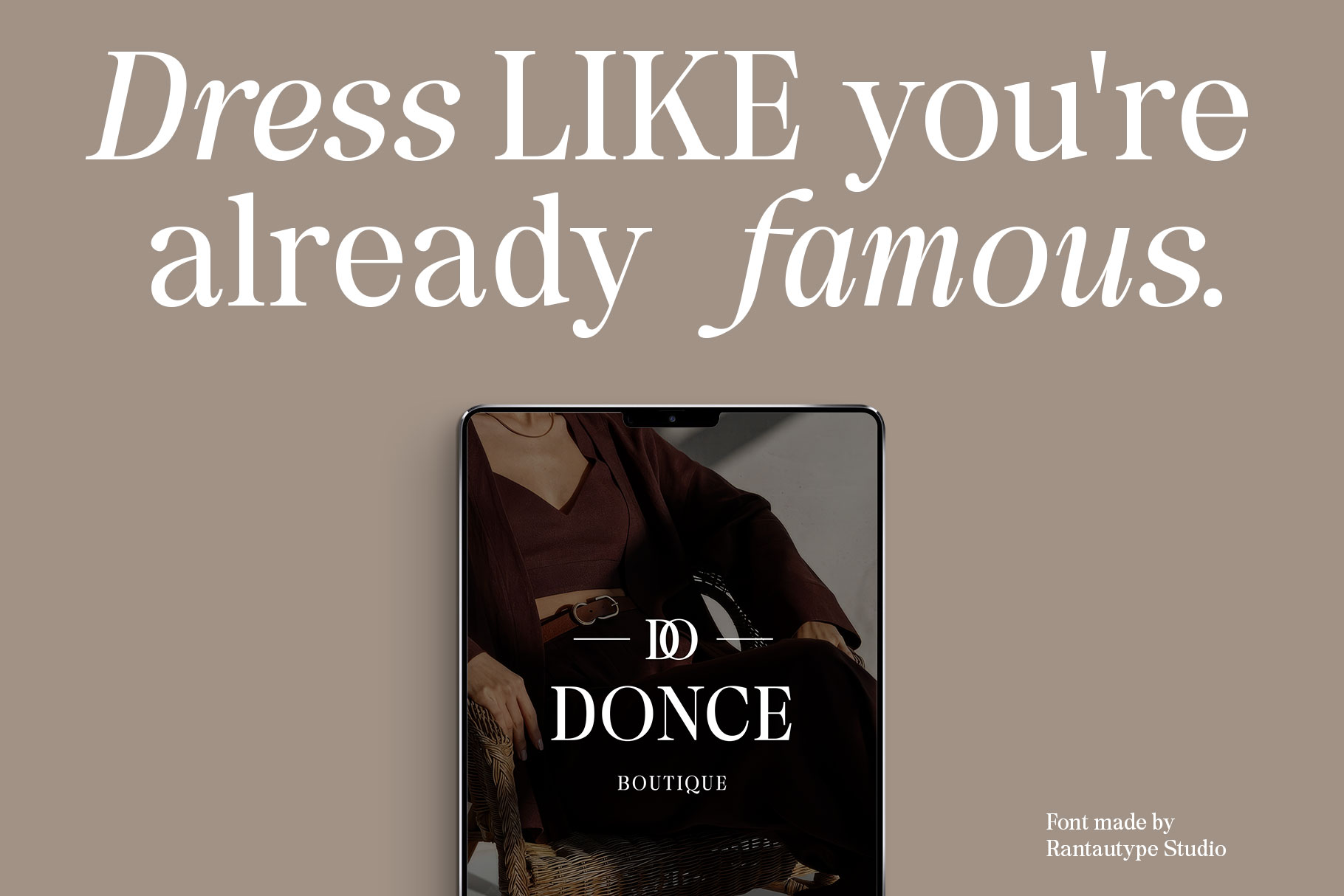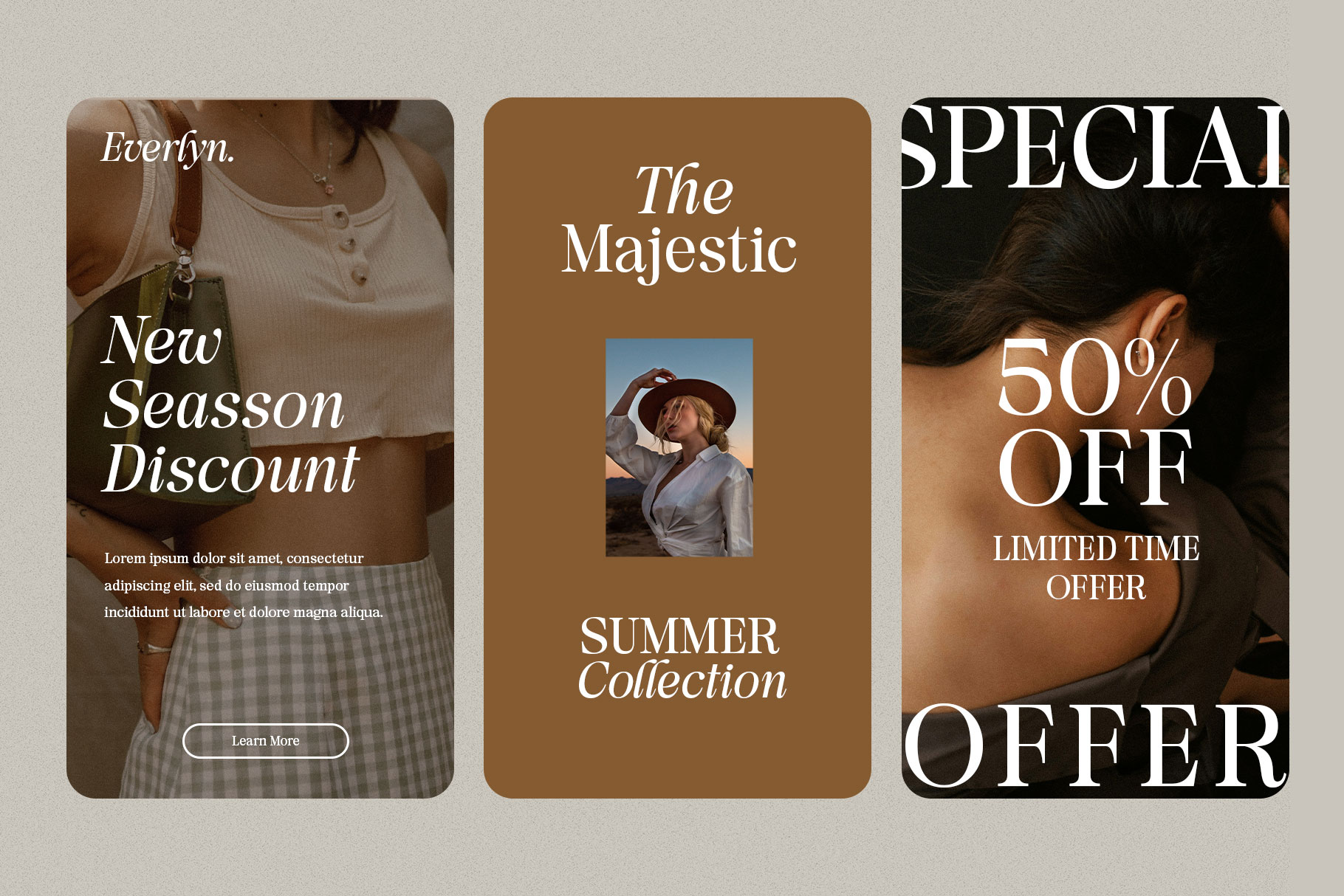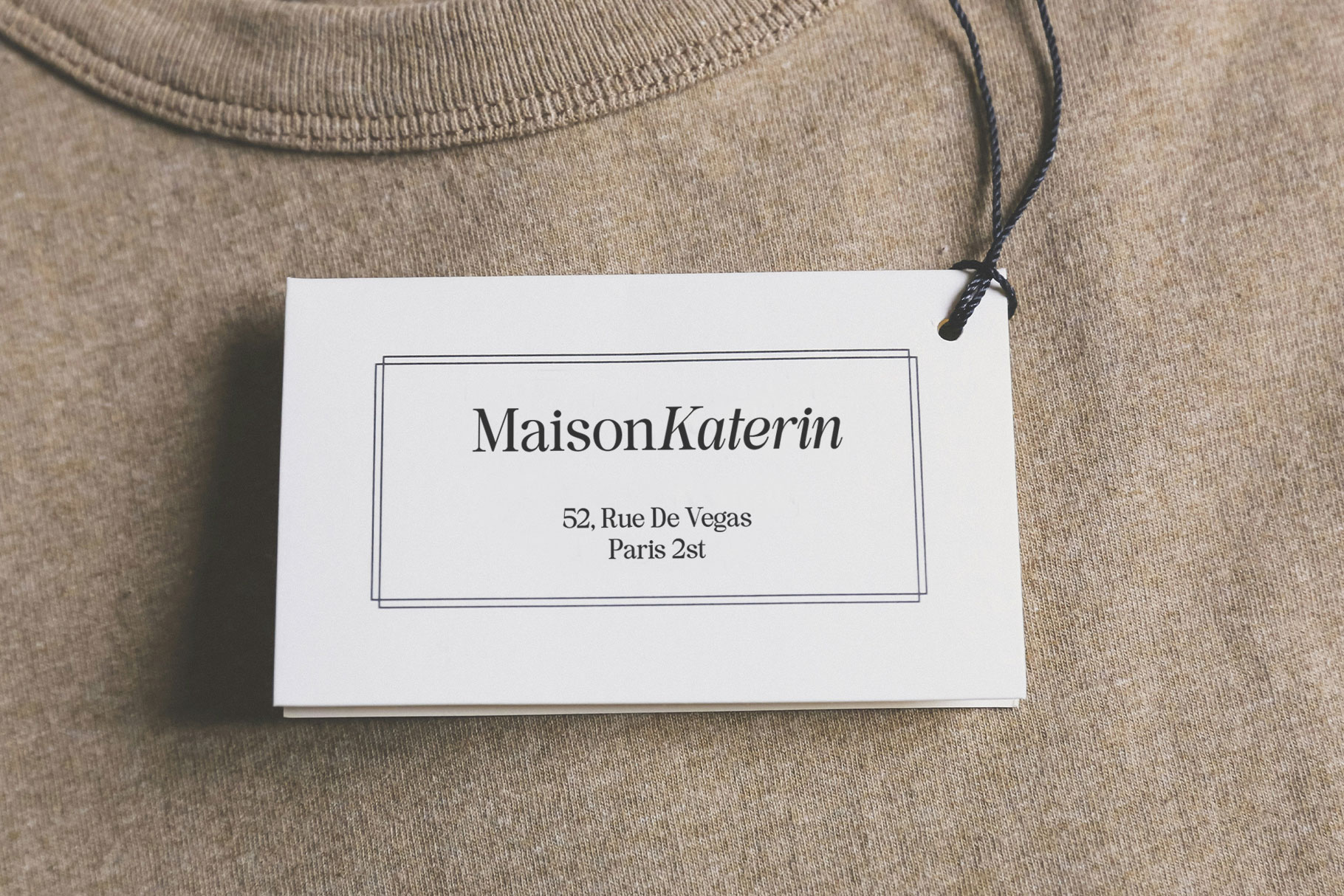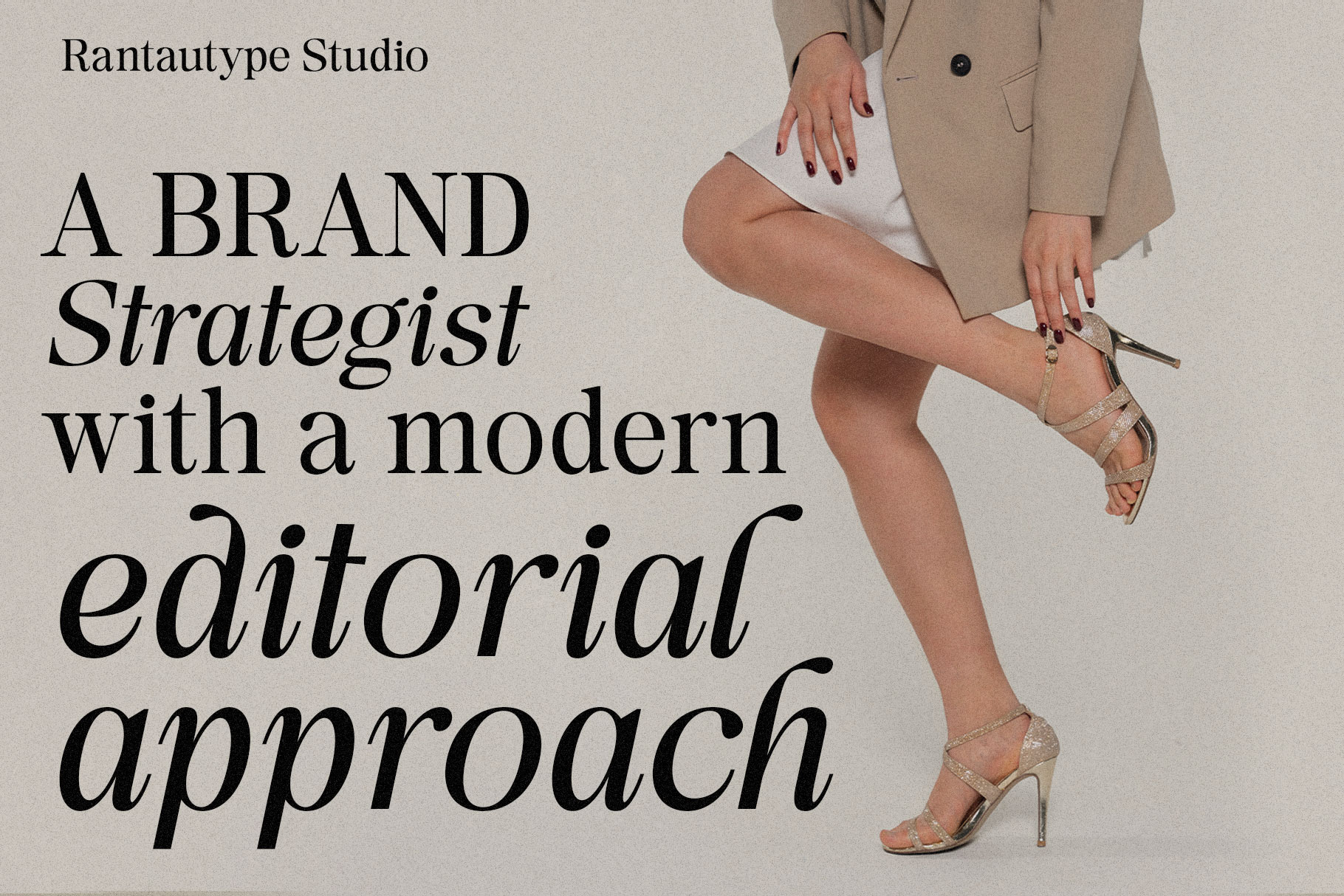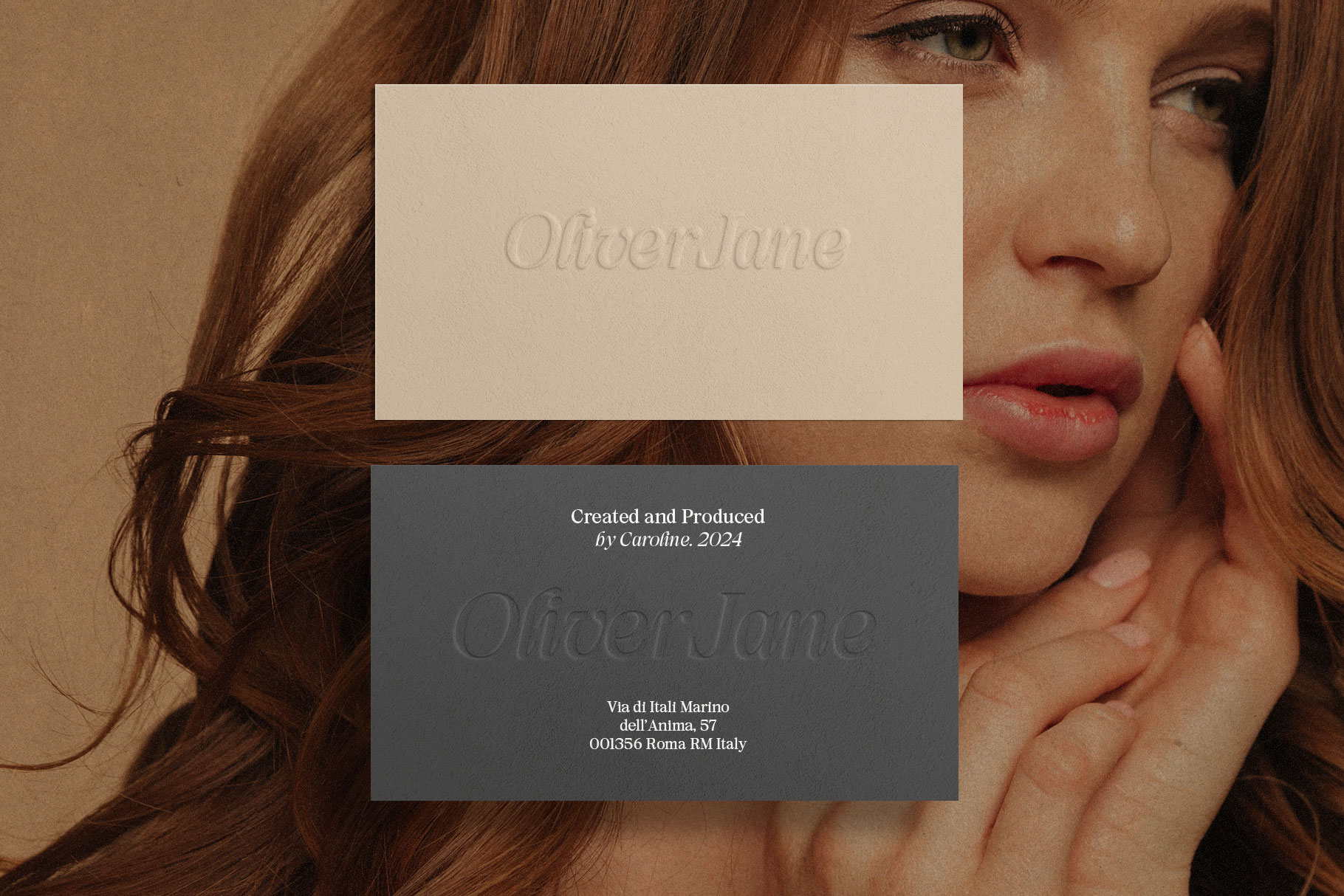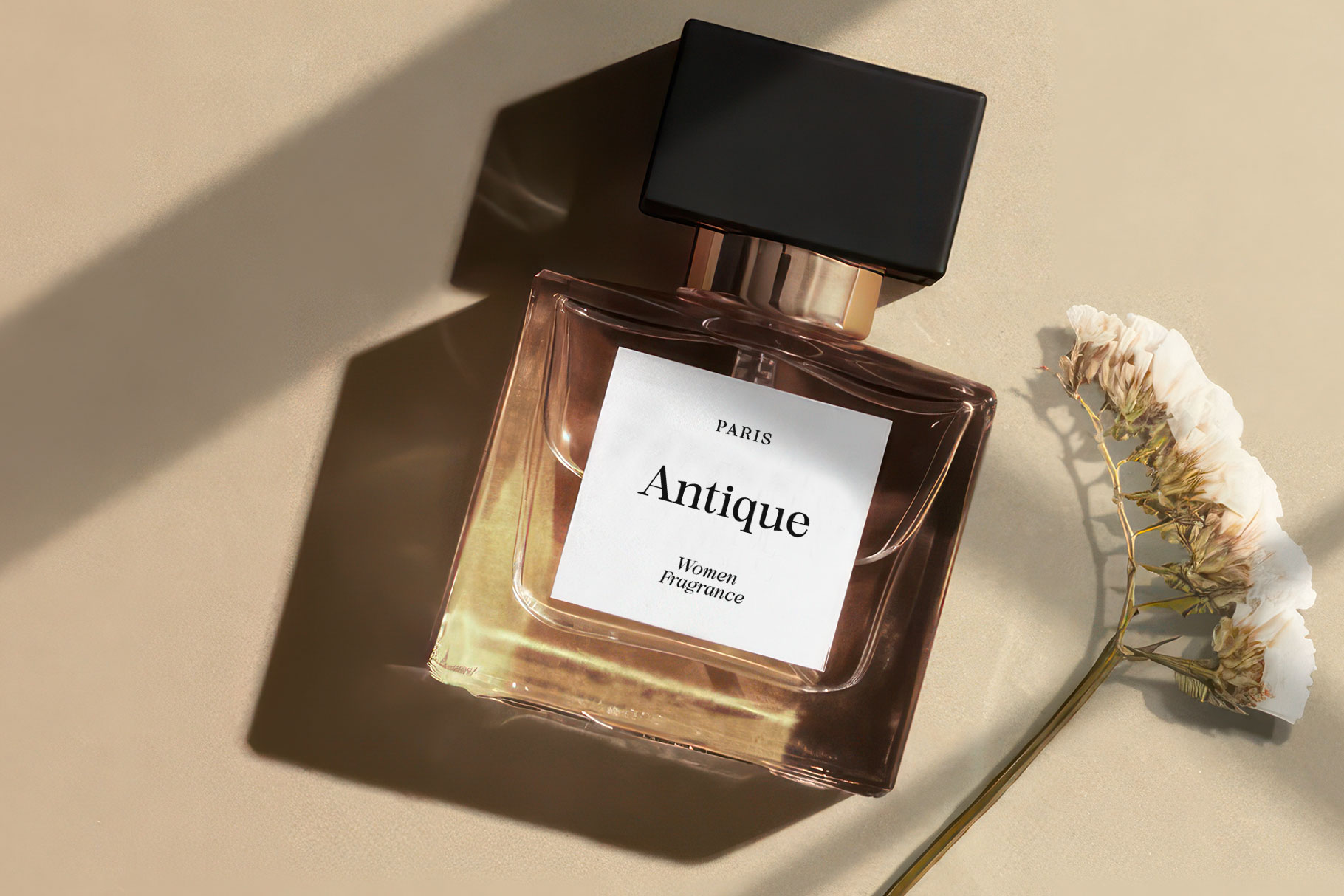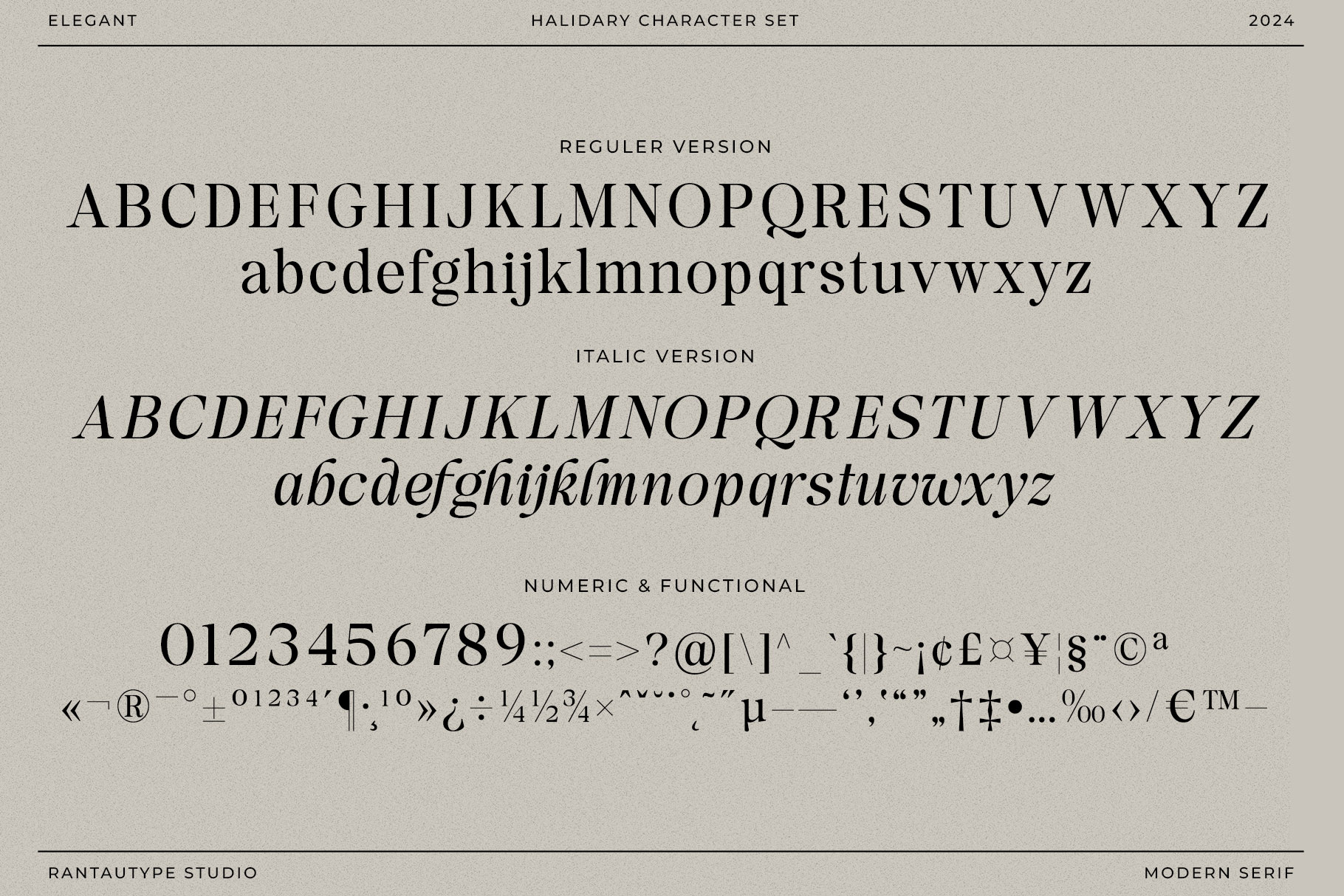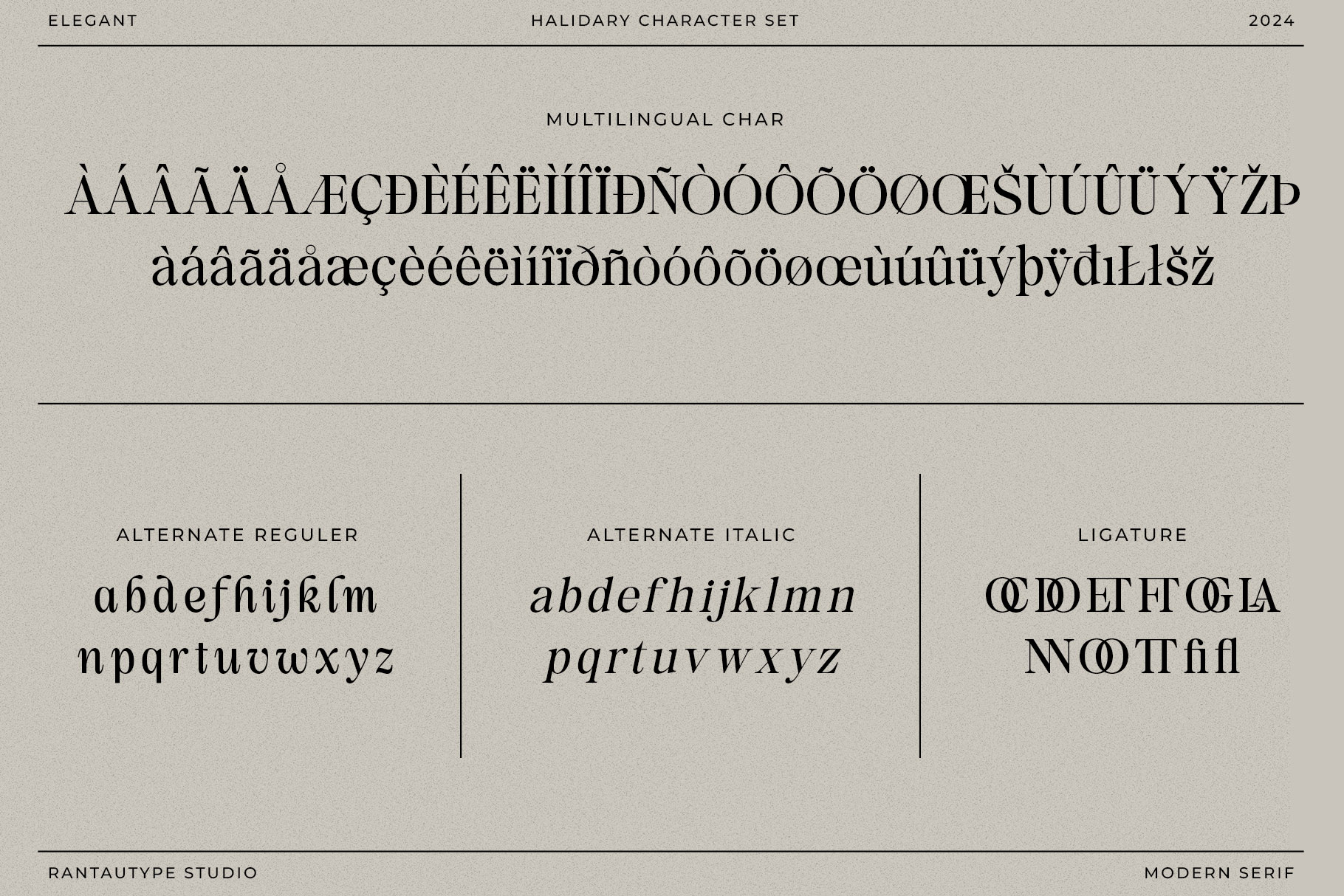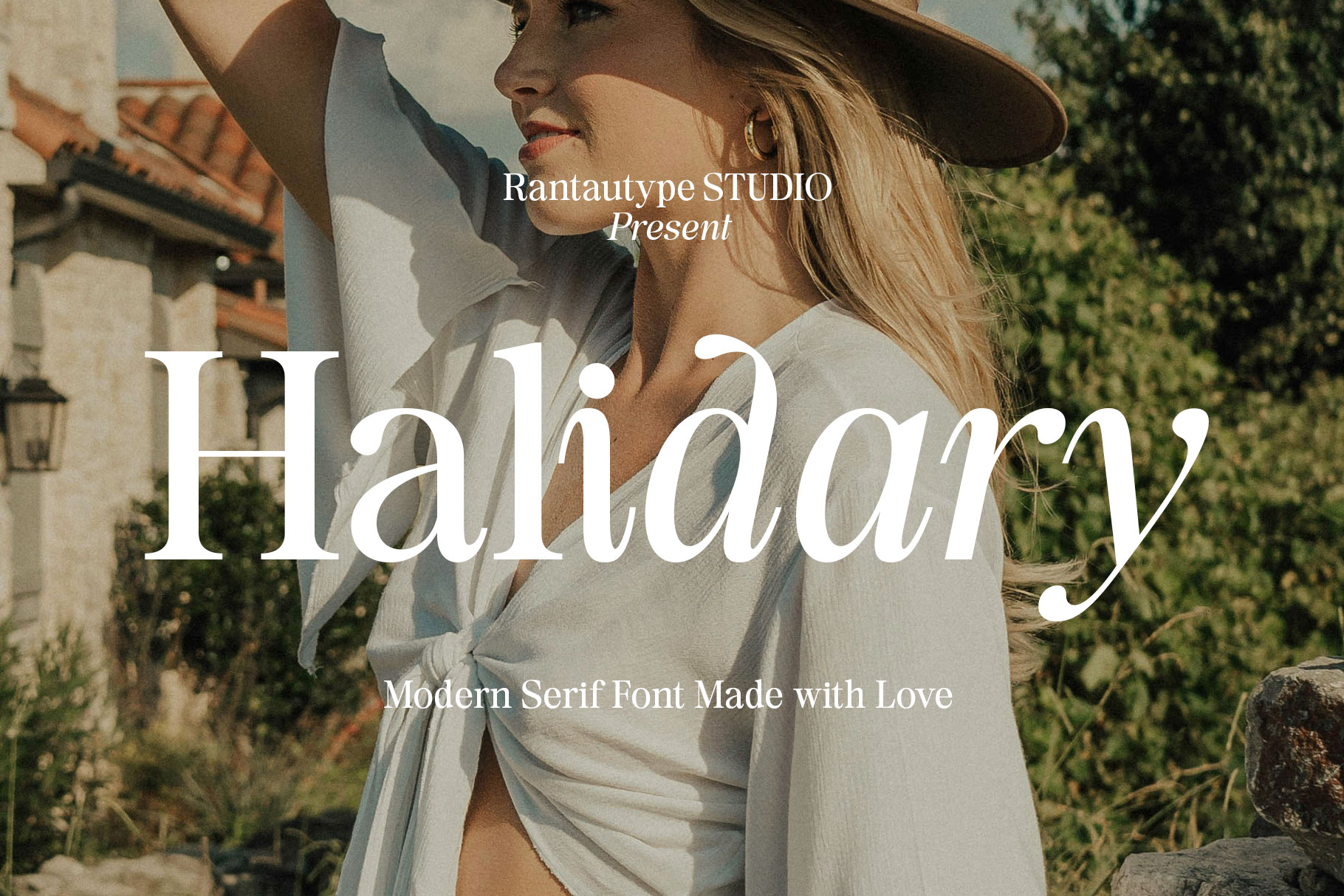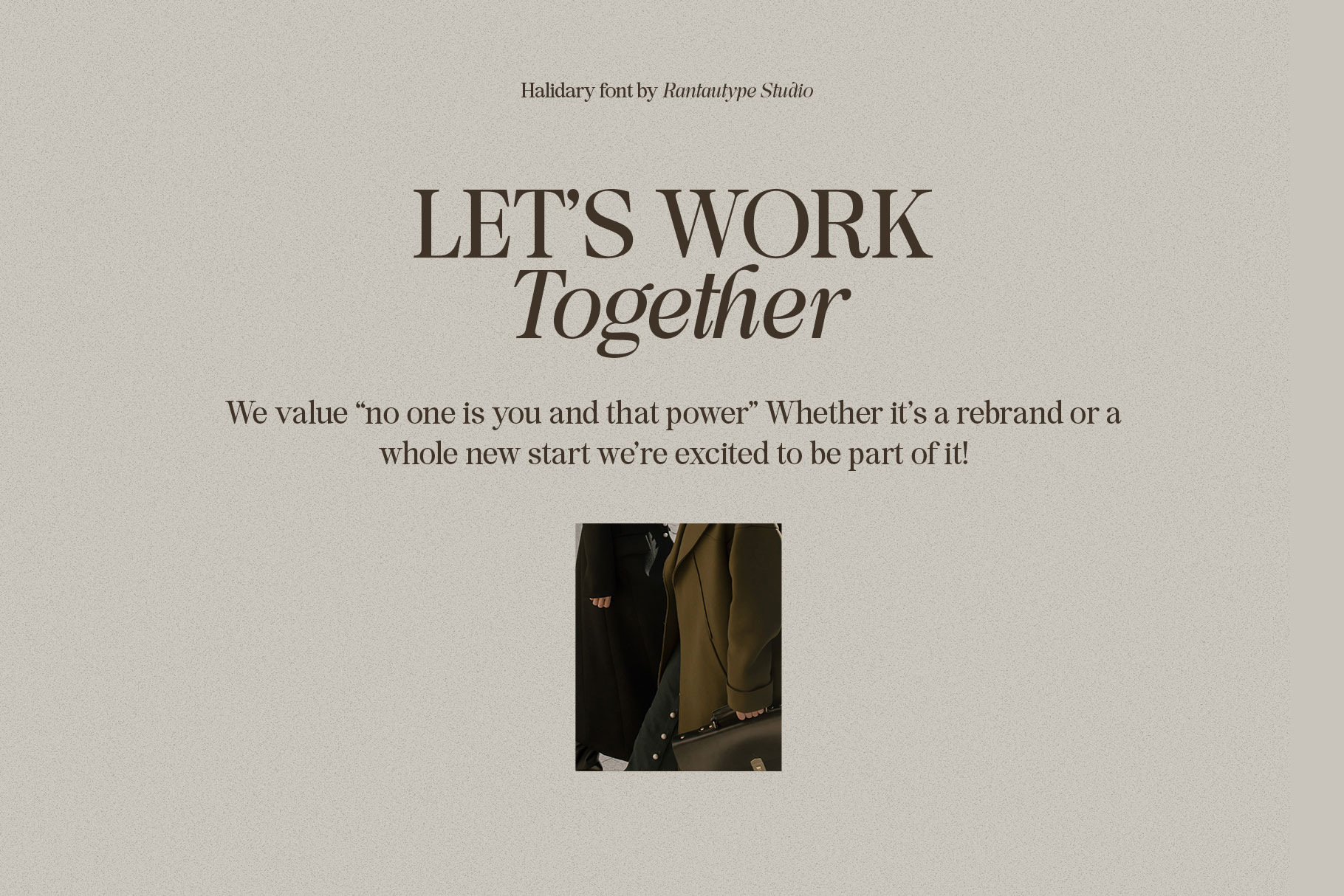
Halidary Modern Serif Font
Halidary is a modern serif font that embraces elegance. Halidary brings a touch of charm and sophistication to branding, editorial designs both come in two versions one with more contrast and crisper, you can mix and match them to create creative design project.
Halidary is a beautiful choice for any creative endeavor, creating elegant, modern, chic, lifestyle design such as logotype, title, cover, branding, invitations, wedding designs, display and magazine, social media posts, advertisements, printed quotes, product packaging, corporate brand, product designs, labels, photography, watermarks, special events and any other project with elegant touch.